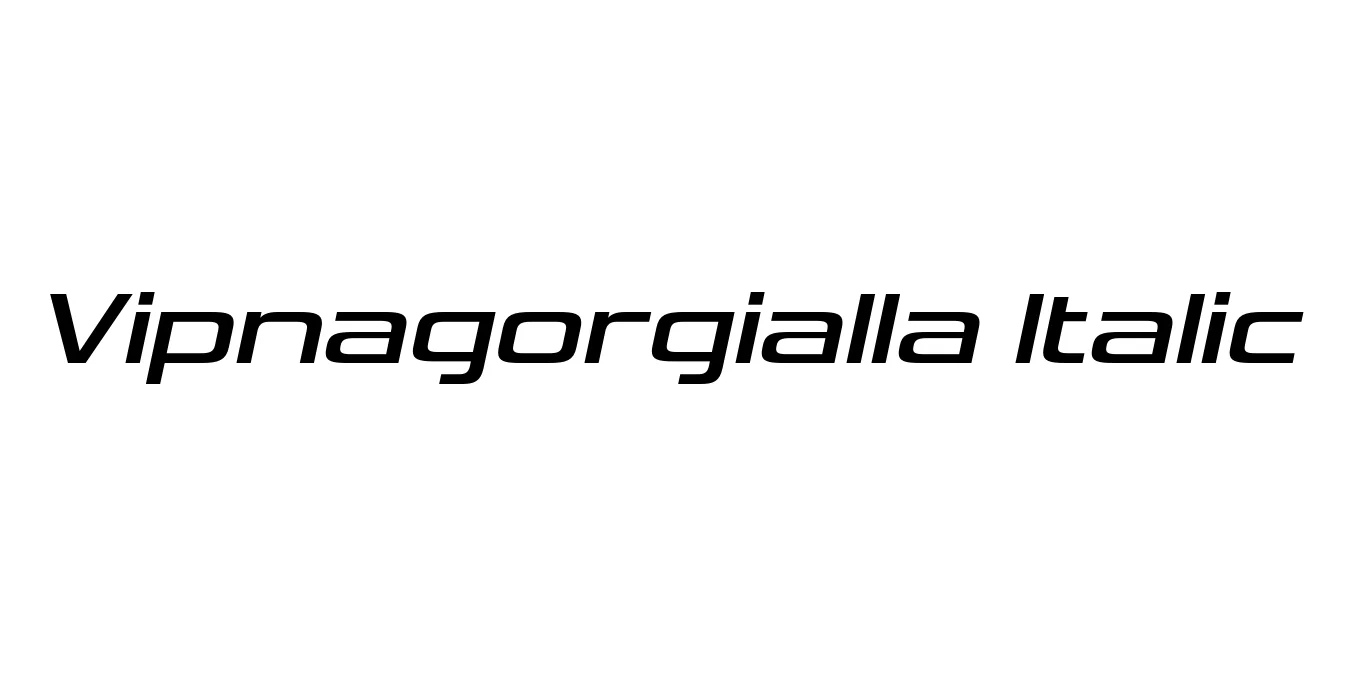
Vipnagorgialla Italic
Designed by Ray Larabie
| Category | Techno / Square Sans-Serif |
Vipnagorgialla Italic is a distinctive square sans-serif typeface created by the prolific designer Ray Larabie of Typodermic Fonts. Originally released during the late 1990s, the font embodies a high-tech, industrial aesthetic characterized by its broad, flat-sided letterforms and mechanical precision. The italic variant introduces a sense of kinetic energy and forward motion, making it a staple for projects requiring a sleek, modern, and slightly aggressive technological appearance.
Throughout the years, Vipnagorgialla has gained significant popularity in the gaming and sports entertainment industries due to its high legibility and strong visual presence. Its design roots can be traced back to mid-century industrial typography, yet it feels entirely contemporary in modern contexts. Whether used for futuristic user interface designs or bold automotive branding, this font offers a unique blend of stability and speed that remains highly relevant in both digital and print media.
Vipnagorgialla Italic Best Uses
Perfect for sci-fi or racing game interfaces, HUDs, and title screens.
Ideal for athletic jersey numbers, gym logos, and sports equipment branding.
Great for website headers, software product packaging, and startup logos.
Works exceptionally well for high-impact display headlines in electronic music or tech events.